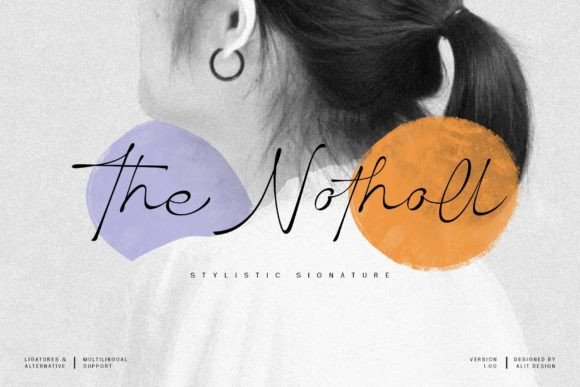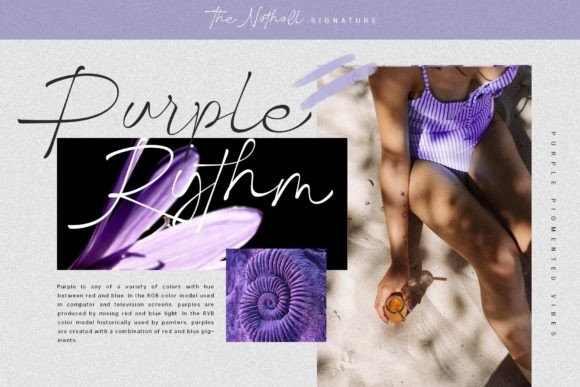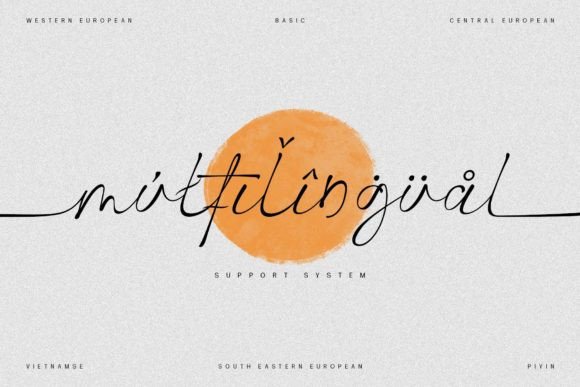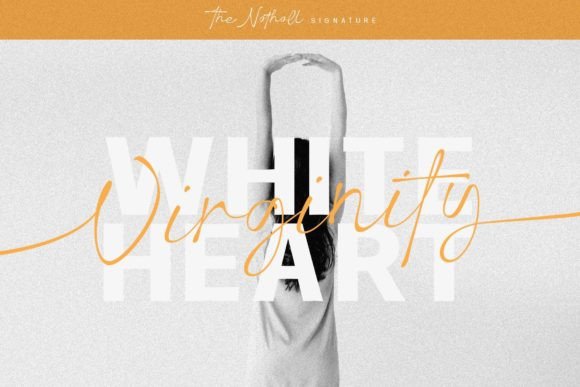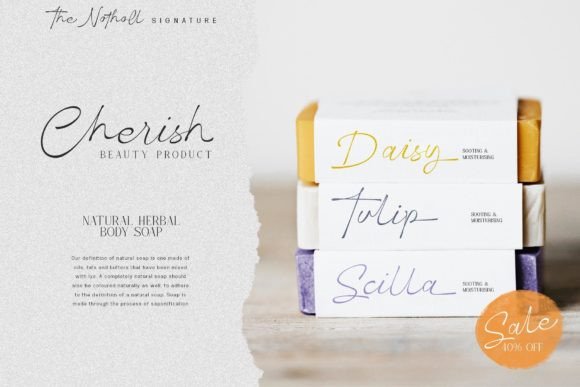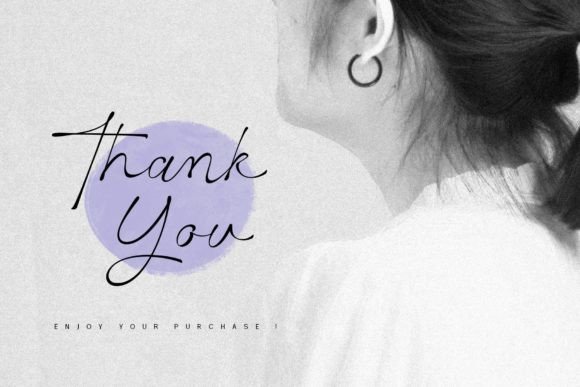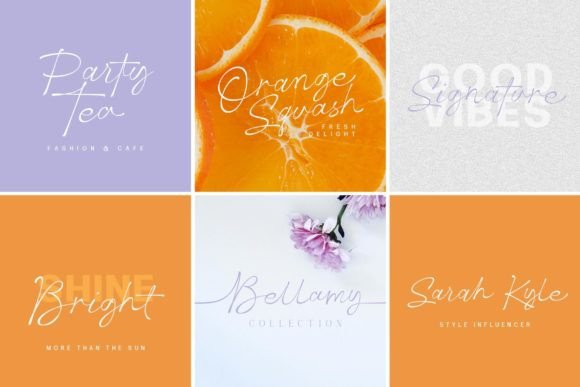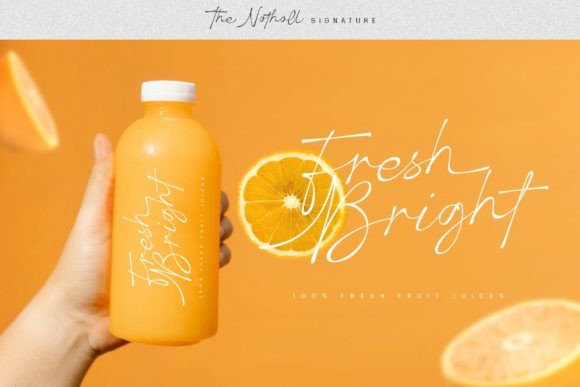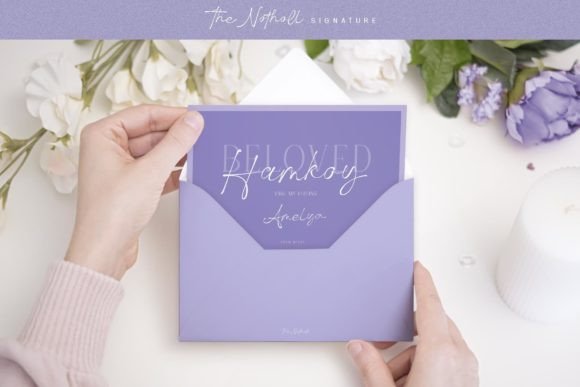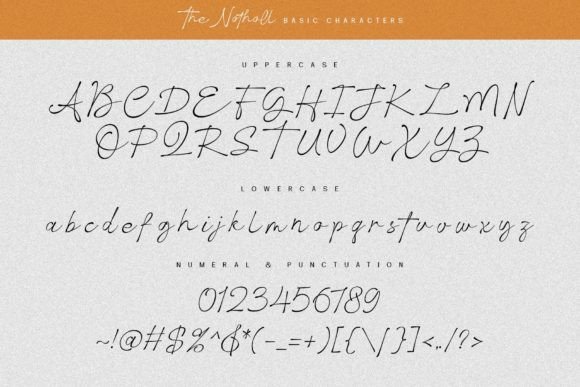
The Notholl Font
About The Notholl Font
“The Notholl” is a charming and elegant handwritten font that adds a touch of sophistication to a wide range of design projects. Its versatility makes it suitable for various applications, including wedding invitations, thank you cards, quotes, greeting cards, logos, business cards, and any design that benefits from a personalized handwritten touch.
The font’s appeal lies in its ability to convey a sense of grace and creativity. Its handwritten style exudes warmth and friendliness, making it an excellent choice for projects where you want to create a welcoming and elegant impression. “The Notholl” allows you to infuse your designs with a touch of charm and personalization.
One notable feature of “The Notholl” is its PUA encoding, which provides easy access to all of its glyphs and swashes. This feature enhances your creative freedom, allowing you to customize your designs with unique and artistic elements. Whether you want to add decorative swashes or create custom typography, “The Notholl” makes it effortless.
By incorporating “The Notholl” into your projects, you can give them a sense of elegance and a handmade touch. The font’s handwritten style adds a personal and authentic feel that resonates with audiences. Whether you’re designing for print or digital media, “The Notholl” enhances the visual appeal of your content.
In summary, “The Notholl” is a valuable font that combines charm, elegance, and creative freedom. Its handwritten style and PUA encoding allow for endless customization possibilities. With “The Notholl” in your font collection, your designs will radiate a sense of grace and personalization, leaving a memorable impression.